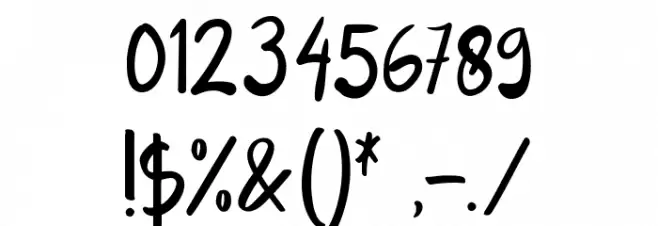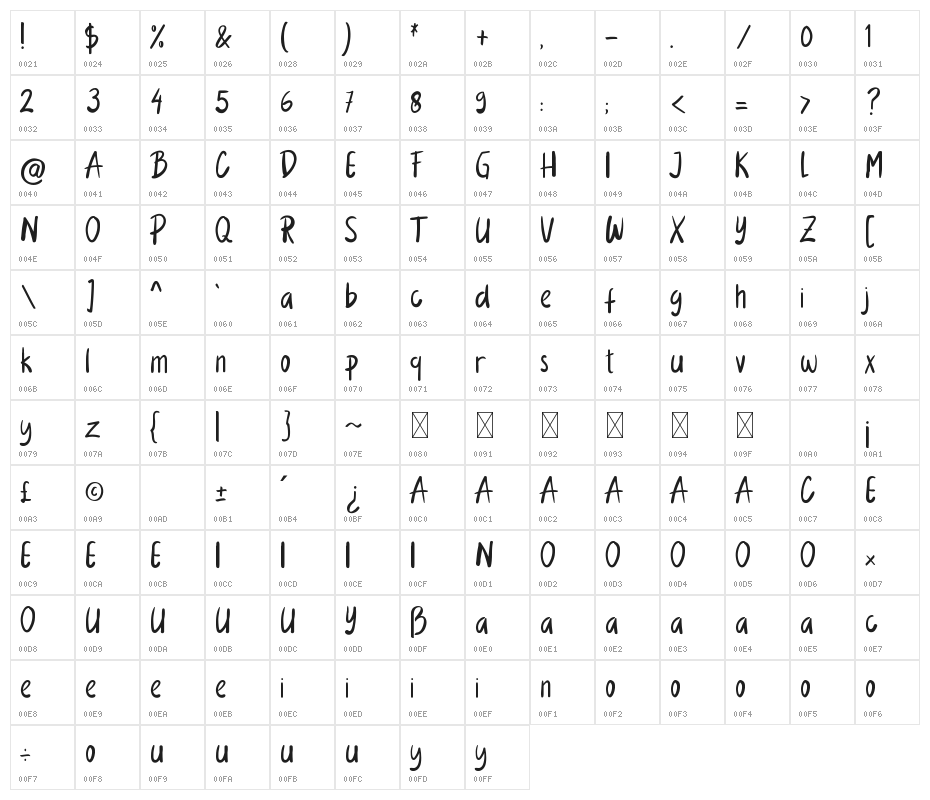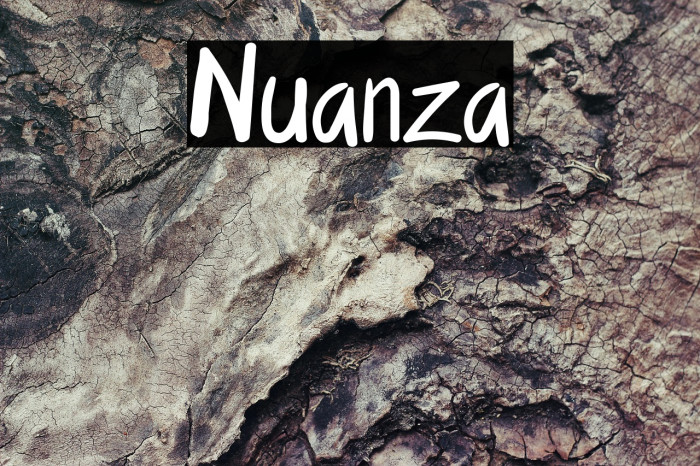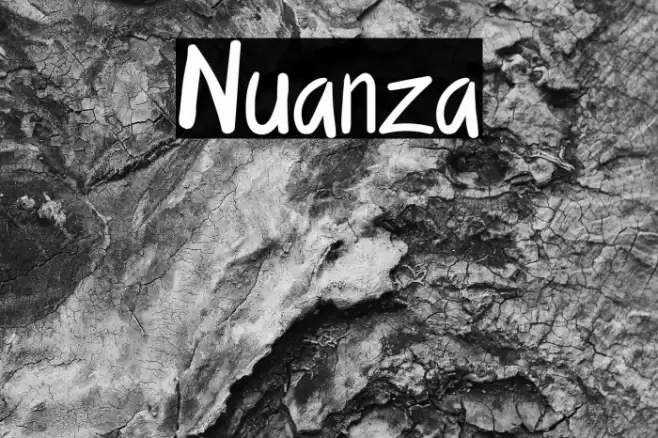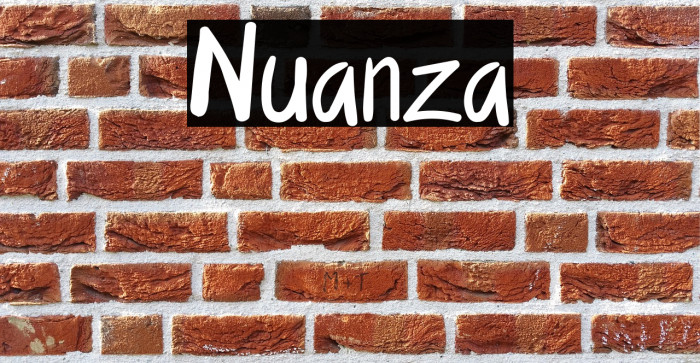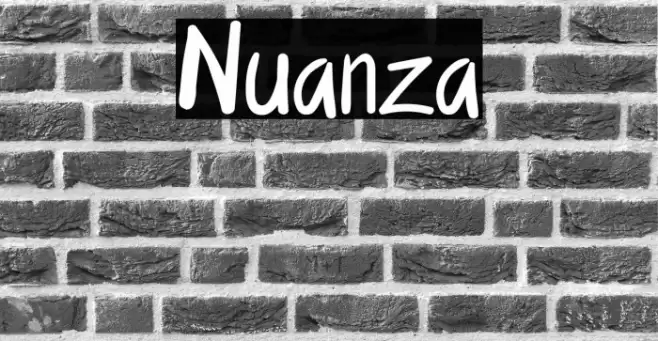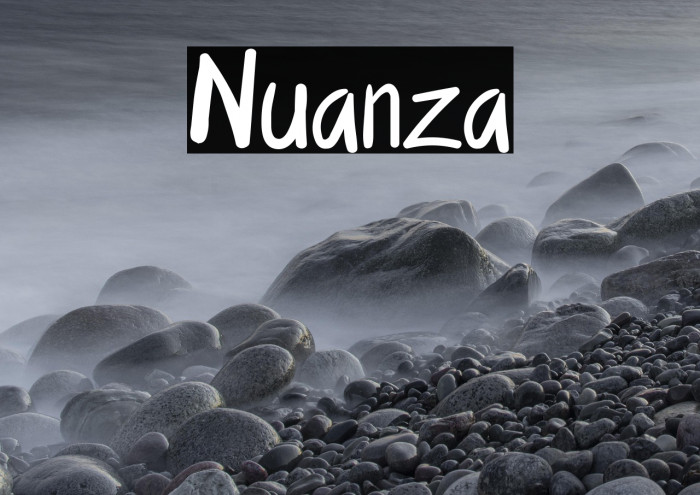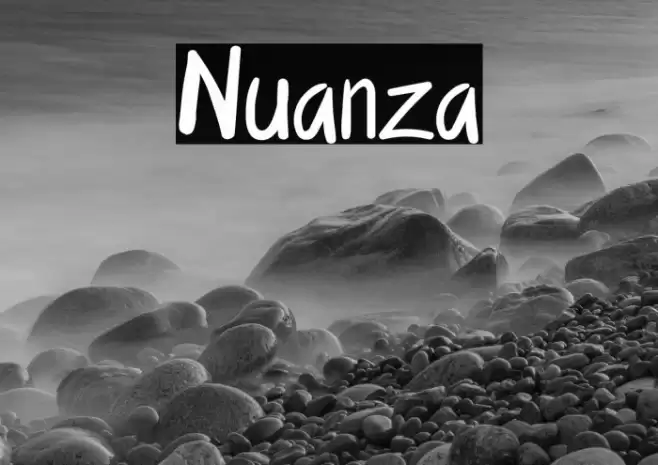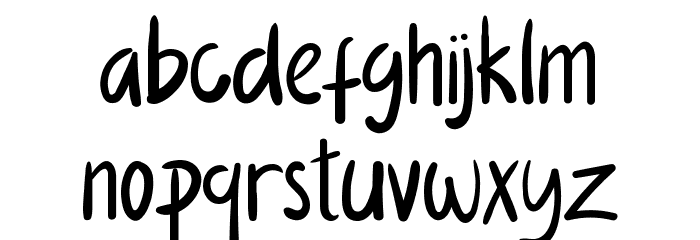
Nuanza Font
Nuanza Description
This font exudes a playful and casual vibe with its handwritten style. The letters are slightly slanted, giving it a dynamic and informal appearance. The strokes are smooth and rounded, creating a friendly and approachable feel. The uppercase and lowercase letters maintain a consistent style, with a slight variation in size and shape that adds to the handwritten charm. The numbers and special characters are equally expressive, ensuring a cohesive look across all text elements. This font is perfect for projects that require a personal touch, such as invitations, greeting cards, or creative branding.